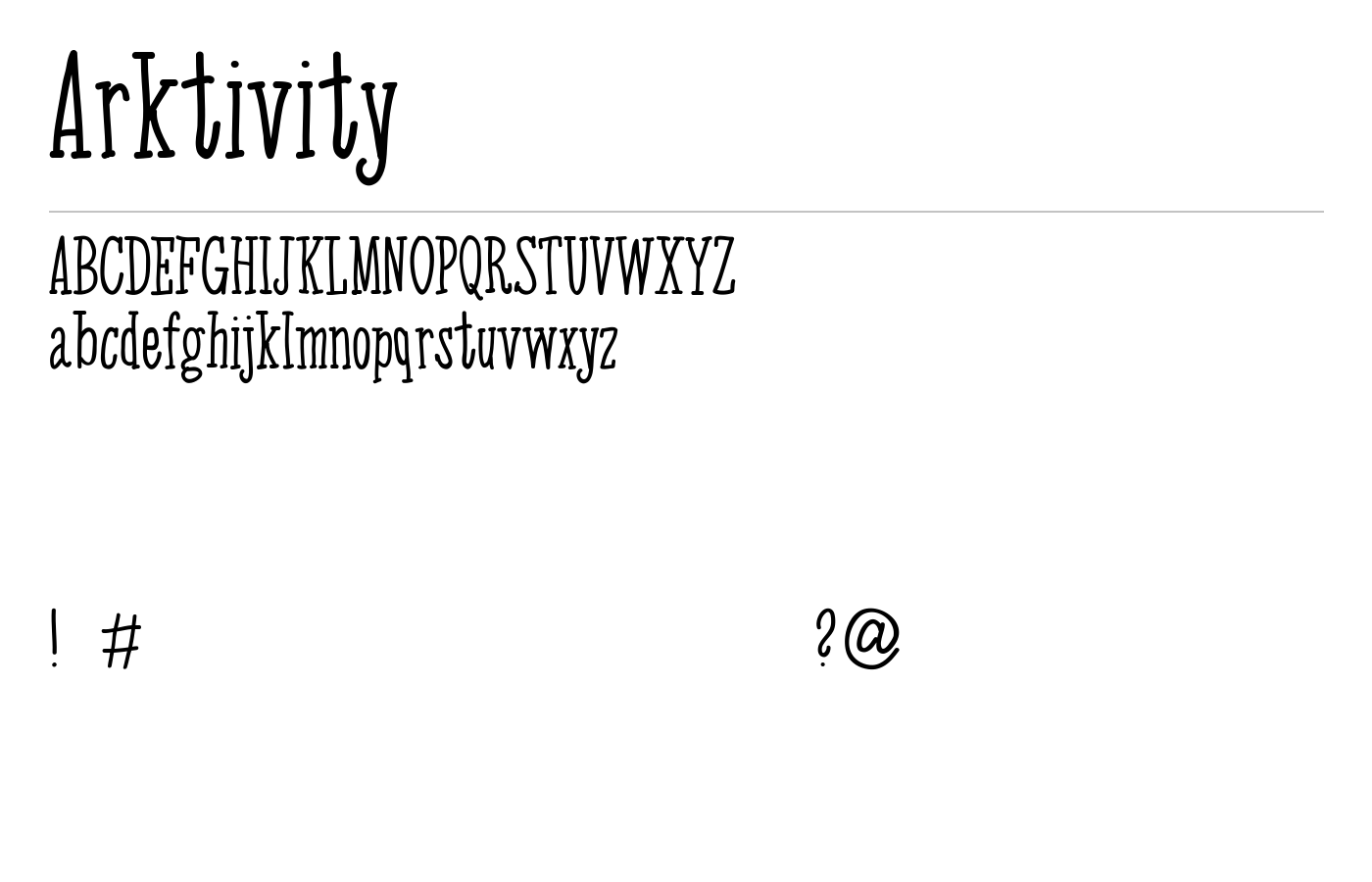
Arktivity is a playful, narrow serif font with a hand-drawn feel, featuring tall, slightly uneven letterforms and whimsical details that add charm and personality. Its light weight and informal style make it ideal for creative, casual designs such as children’s books, invitations, and quirky branding where a friendly and approachable mood is desired. This font works best in headlines and short texts, bringing a unique touch without overwhelming the reader.
Arktivity Font